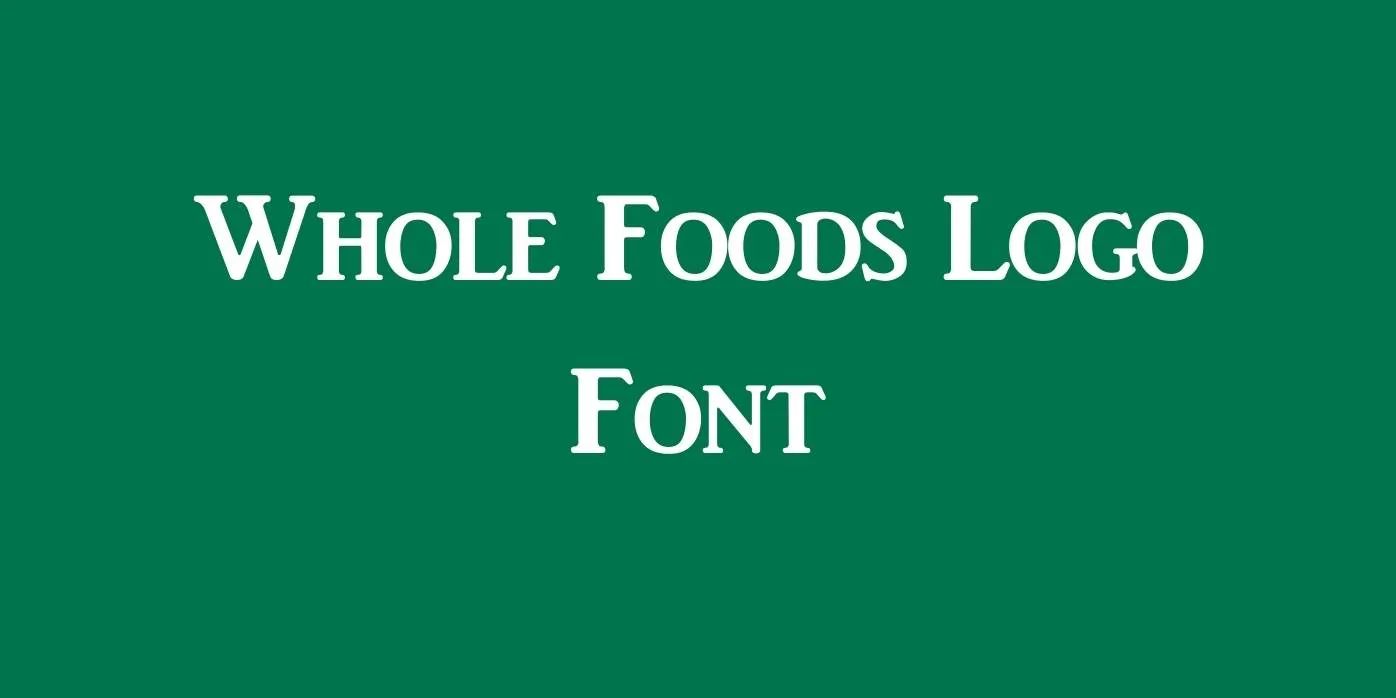
Whole Foods Logo Font
In this post, we present the Whole Foods Logo Font that is developed by Alan Bright. This typeface belongs to the serif font family.  The aim of this typeface is to create a modern and classic look that would be perfect for any branding project. This font has been inspired by the work of some of the most popular designers.
The typeface has been designed to be used in both digital and print media.